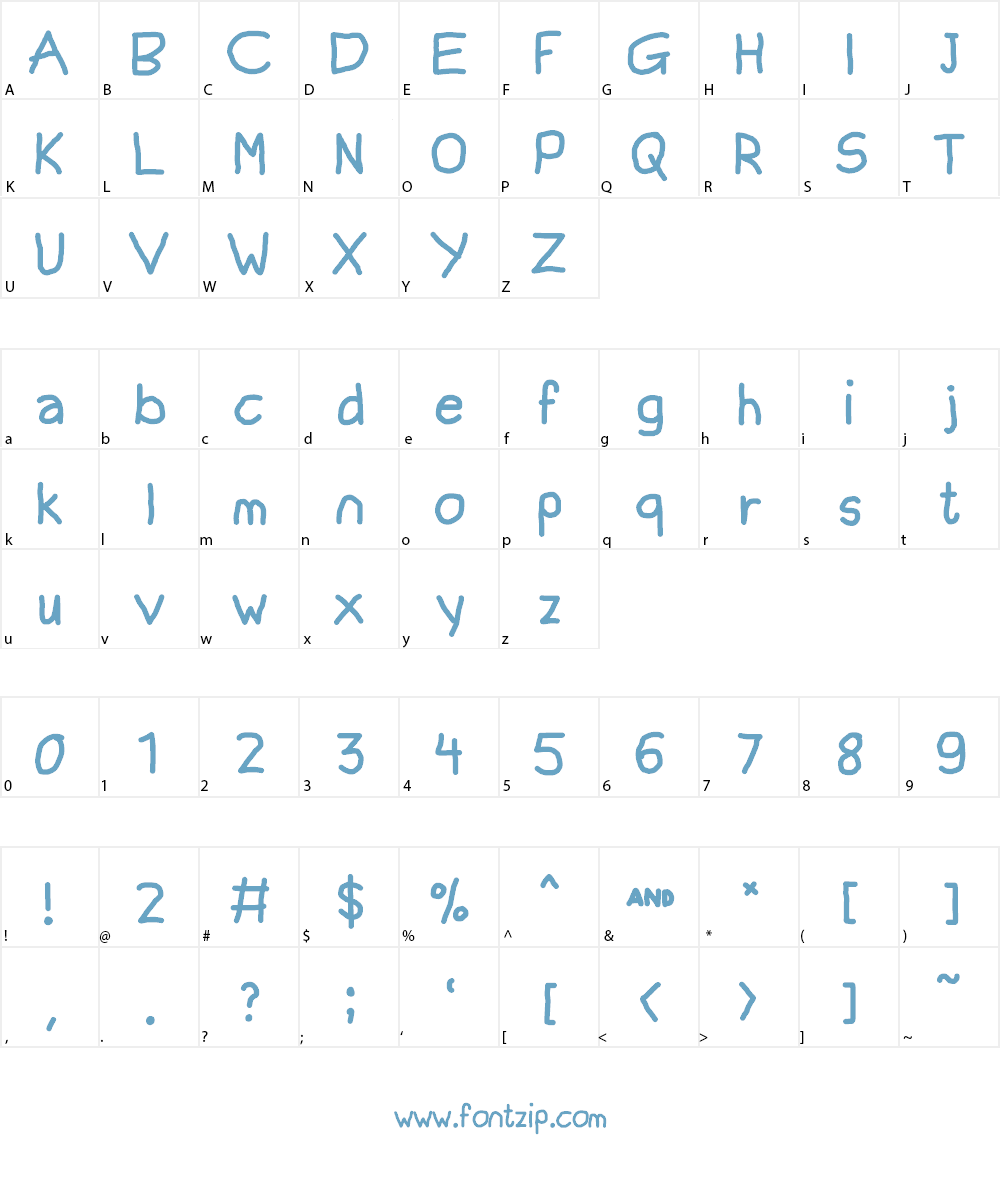
This is a font I have on my Flash drive for a while, because my trial of Font-Creator cannot allow me to export .ttf and .otf files. Then i got licensed to the program and exported my fav. handwritten font Progandae, & I did all the glyphs with the FreeDraw tool.